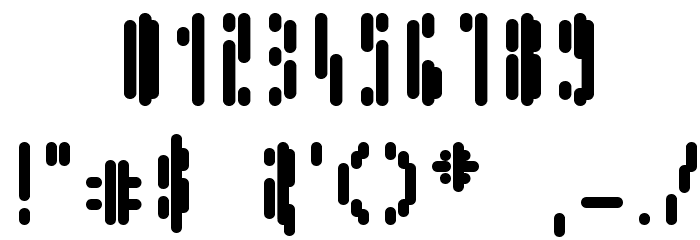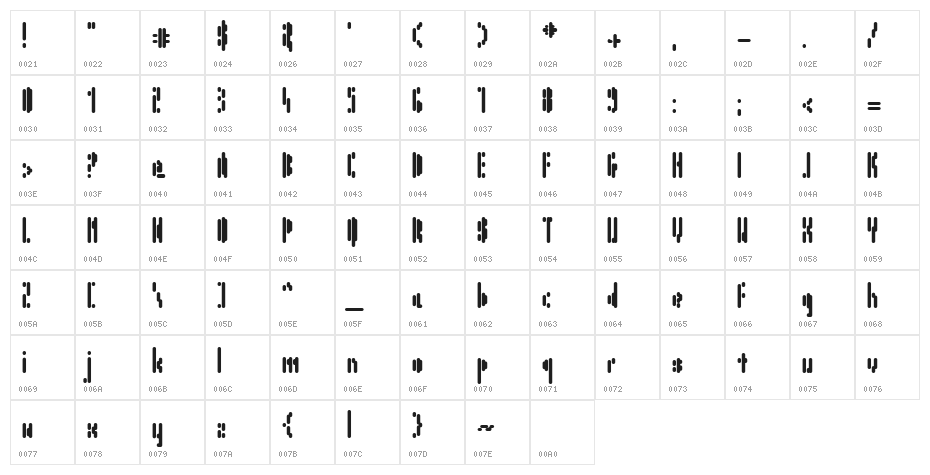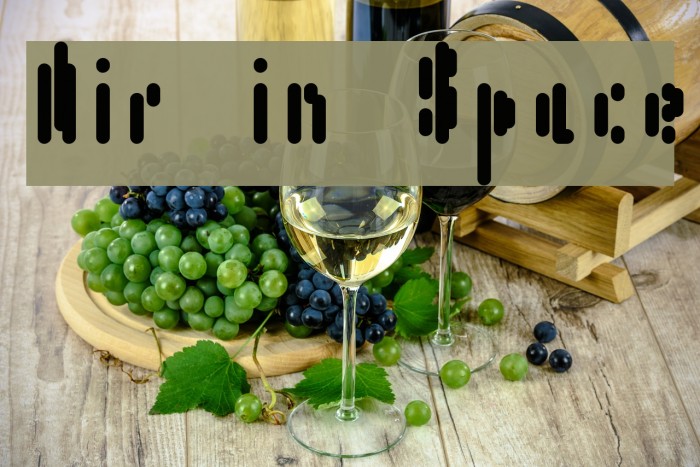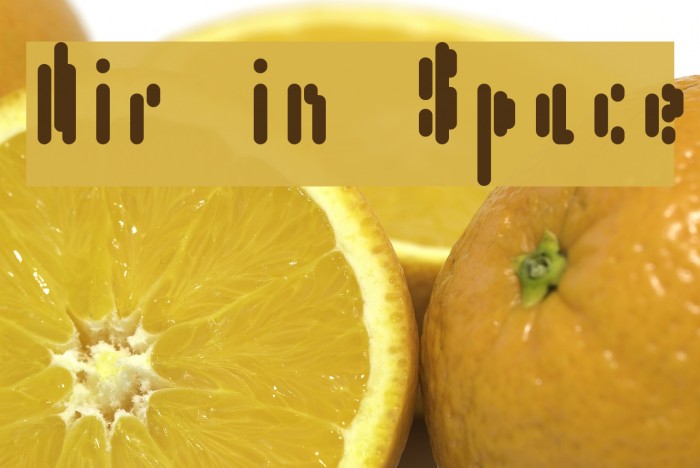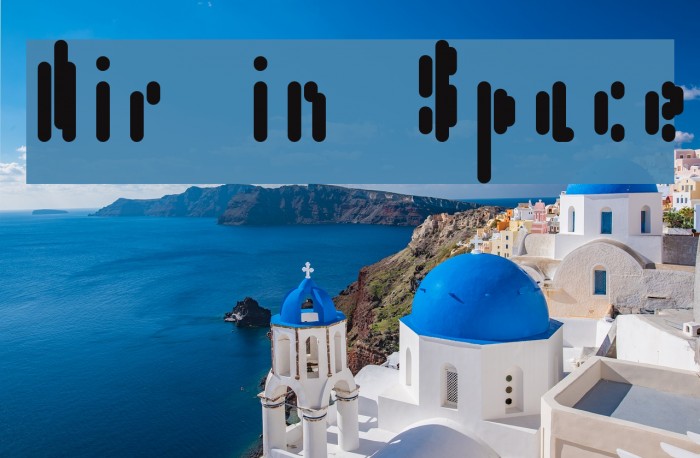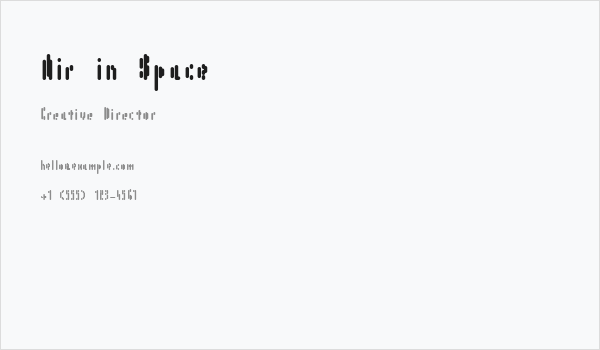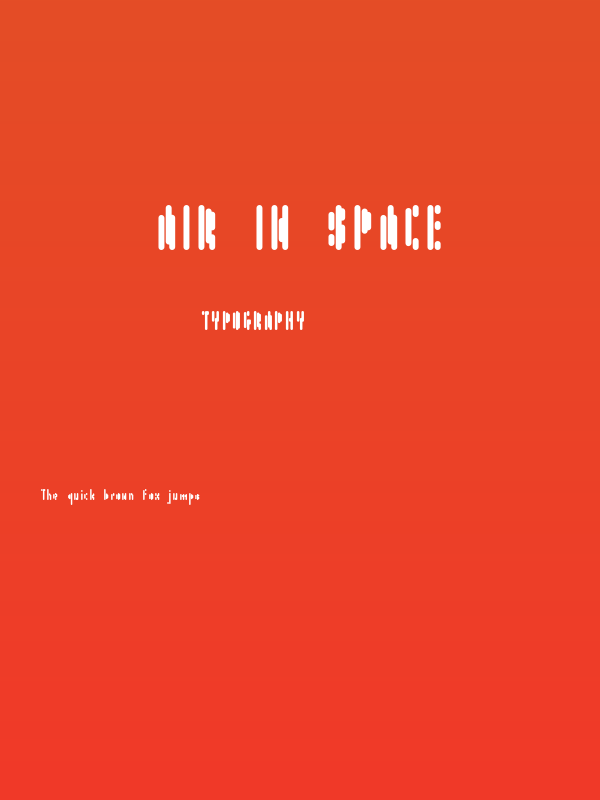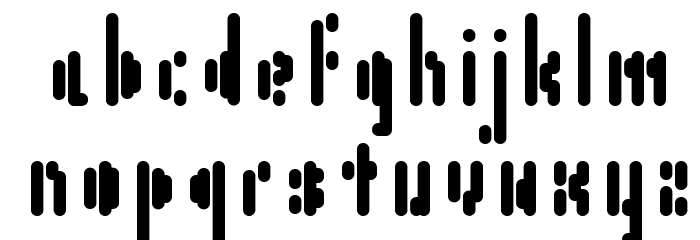
Air in Space Font
This font features a futuristic and digital aesthetic, characterized by its unique dot and dash pattern that forms each letter and number. The design is reminiscent of digital displays or Morse code, giving it a high-tech and modern feel. The characters are bold and distinct, with a consistent pattern that makes them easily recognizable. The spacing between the dots and dashes within each character is tight, creating a compact and cohesive look. This font is ideal for projects that require a modern, tech-savvy appearance, such as digital interfaces, tech branding, or sci-fi themed designs.
| Proposed Projects | Ideal for digital interfaces, tech branding, sci-fi themes, and modern design projects. |